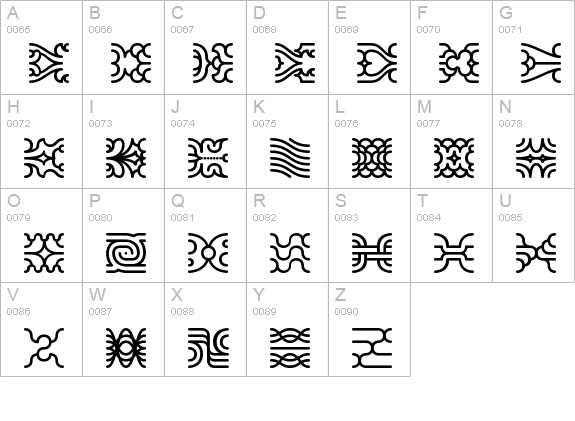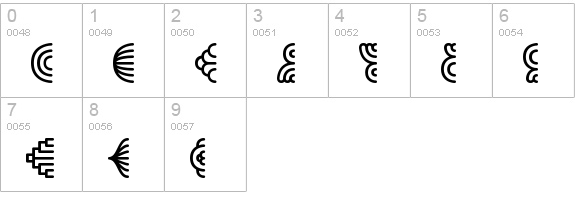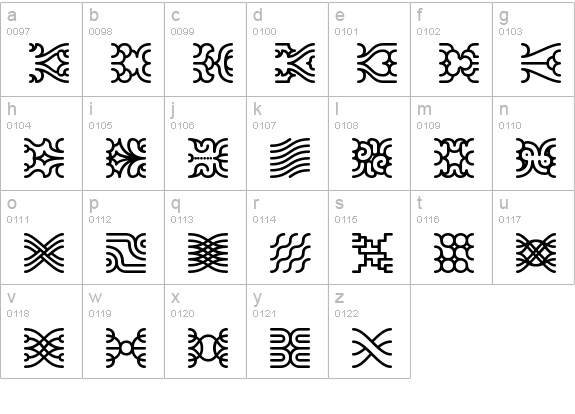
Line Dings (BRK) Font Details
Line Dings (BRK) font is a stylish and modern typeface that is perfect for adding a touch of elegance to your designs. With its clean lines and sleek curves, this font is versatile and can be used in a variety of projects. Whether you are creating a logo, poster, or website design, Line Dings (BRK) font will make your text stand out. The best part about Line Dings (BRK) font is that it is completely free to download. You can easily access this font at FontsMarket.com and start using it in your projects right away. Don't miss out on this amazing opportunity to enhance your designs with the beautiful Line Dings (BRK) font today!